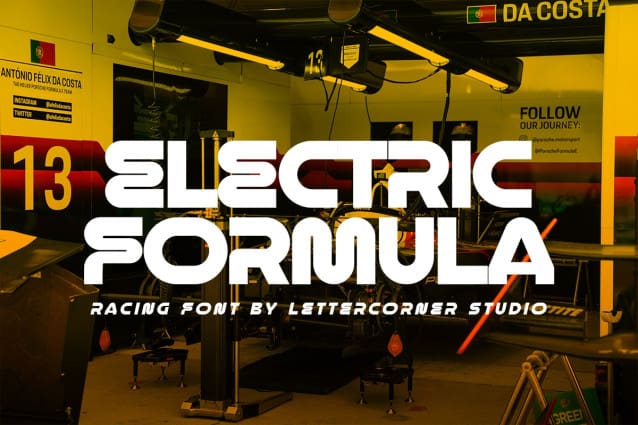
Electric Formula Font
Electric Formula Font, is a sans serif  stunning when combined or separately. This sans serif font style is legible and stunningly designed.